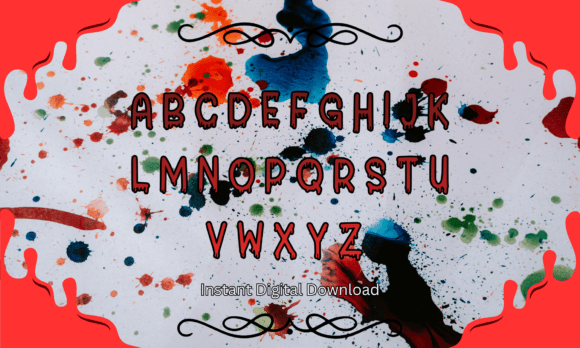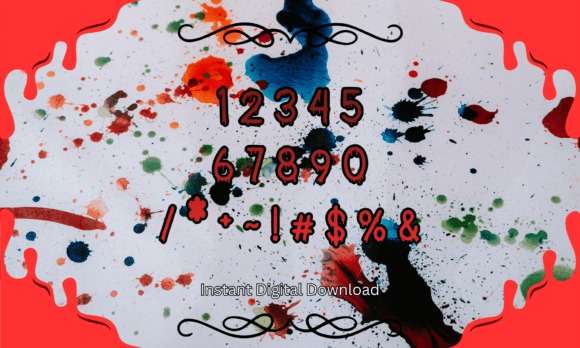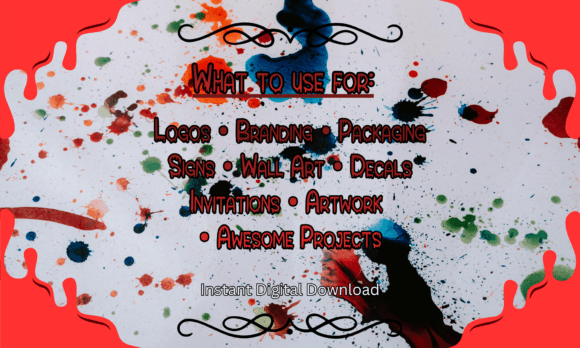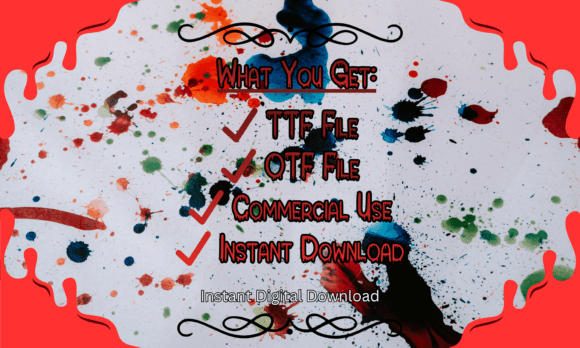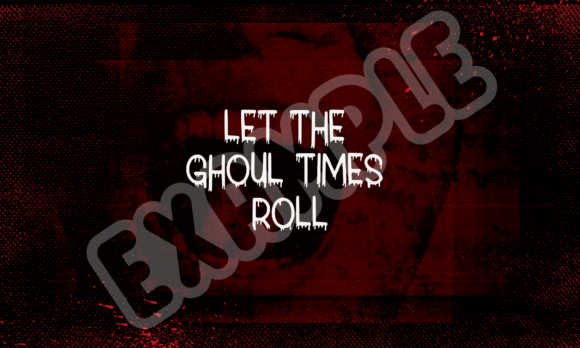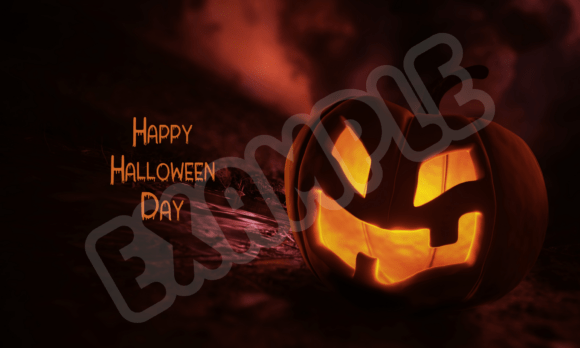
Introduction to Ink Drip Font
Bring your designs to life with eerie horror vibes using Ink Drip Font 🖤🩸 This creepy dripping display font is inspired by horror movies, ink splatters, blood drips, graffiti textures, and spooky Halloween aesthetics.
With its melting letter style and bold handcrafted appearance, Ink Drip Font is perfect for scary projects that need dramatic impact Perfect for creators who love dark aesthetics, horror themes, and grunge-inspired artwork.